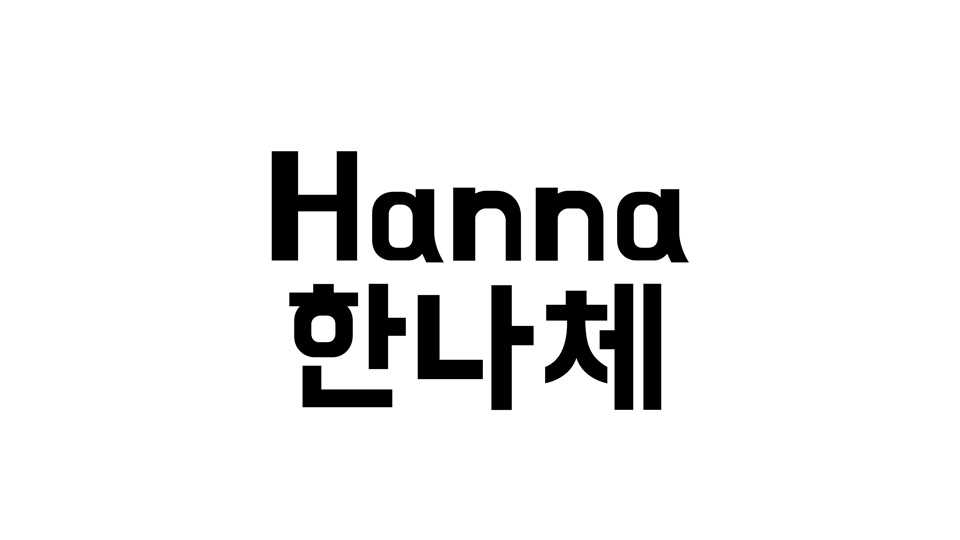
Download Hanna font, a display typeface that represents the kitsch and retro style of Baedal Minjok, which has a general motif of 1960s and 70s signage.
Designer: Woowa Brothers